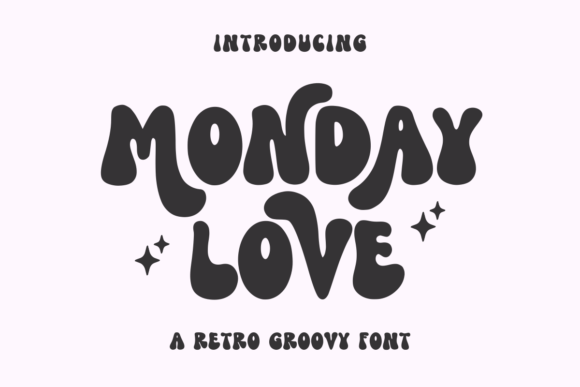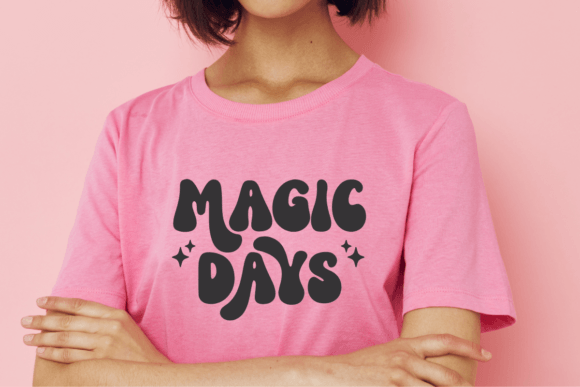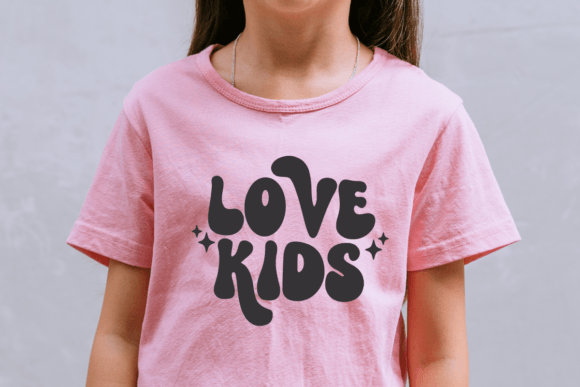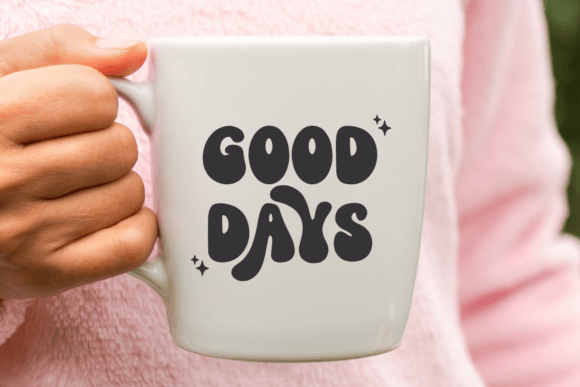
Monday Love Font
Monday Love.’ As a Retro Groovy Font, its unique allure shines brightest when a playful mix of lowercase and uppercase letters dance across the page. Ideally suited to a myriad of creations such as crafts, t-shirts, cosy hoodies, adorable mugs, quirky packaging, welcoming doormats, sleek tumblers, striking posters and handy tote bags – the possibilities are truly endless! Fall in love with this stylish font and allow its vintage flair to inspire your craftsmanship.